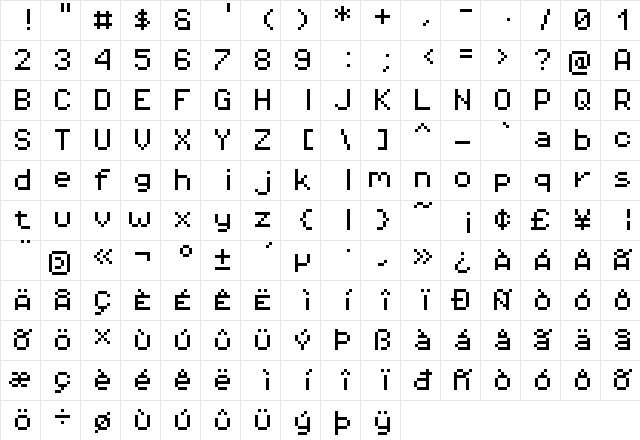
Pixel Operator Mono 8 Regular
| Foundry | The Grandoplex Project |
| Designer | Jayvee Enaguas (HarvettFox96) |
Design Context for Pixel Operator Mono 8 Typeface
Pixel Operator Mono 8 celebrates the constraints of early digital type, turning pixel geometry into a distinctive and immediately recognisable style.
Well-suited to indie game interfaces, retro computing aesthetics, and pixel art-adjacent design work.
Pro Tip: Use Pixel Operator Mono 8 at sizes that align with its pixel grid for the sharpest rendering — scaling to non-integer multiples can introduce unwanted blur.